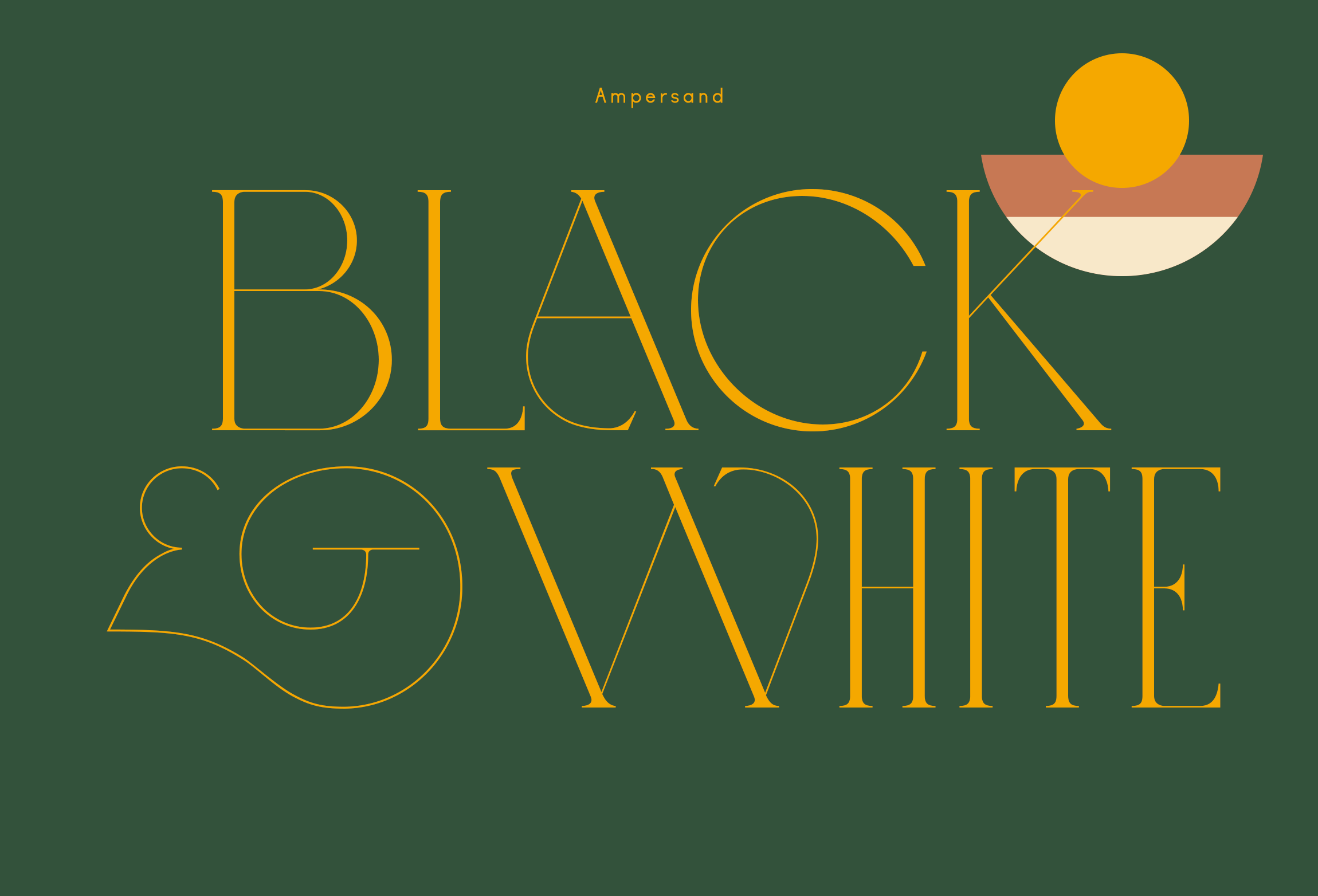
Back Story: This typeface was inspired by the American psychedelic rock band Love, and in particular by their marvelous 1967 album Forever Changes, according to Violaine Orsoni of VJ-Type, the studio she runs with her business (and life) partner Jérémy Schenider. That was the year musicians began moving away from releasing single tunes on 45-RPM discs and started producing ambitious, full-bodied albums. In this vein, Forever Changes blended diverse styles including rock, jazz, folk, and symphonic pop into a fluid, irresistible groove. Despite being a commercial flop at the time of its release, its now widely considered one of the great unsung albums in rock history.
Why’s it called Love? Besides being named for the band, other reasons include: because the letterforms embrace each other in the many ligatures, forming singular couples; because the meeting between sharp and round shapes embodies the “opposites attract” theory of relationships; and because Violaine and Jérémy love to design typefaces. And also, because they love each other. Aw.
What are its distinguishing characteristics? Love is an all-caps display font with each letter available in at least two styles (although Schneider, in typically playful fashion, created two character sets named Uppercase and Lowercase, distinguished mostly by variances in letter width, plus a few other quirks here and there). Many have an even more generous selection of alternates: the “M” has four options, for example, and the “R” has five.
“We worked to give Love 17 stylish ligatures,” says Orsoni. The characters have beautiful contrast thanks to exaggerated counter-forms paired with thin stems, creating a variety of rhythms that somehow preserve balance among typeset words. The typeface emits an essential French-ness despite its American ’60s inspiration, channeling the ghost of 20th-century design legend A.M. Cassandre and echoing the sensually intertwined letters of one of his final projects, the 1963 Yves St. Laurent YSL logo. However, Love’s inventive ligatures coupled with extreme contrasts in letterform width and stroke give it its own distinctly modern voice.
What should I use it for? “Mostly for titles,” Orsoni says. “But the range of glyphs can bring the font into a kind of logotype universe, too.”
What other typefaces do you like to pair it with? For a partner with equal typographic distinction and flair, try pairing Love with Kobe or Fugue. Some happy couples work because one is content to let the other hog the spotlight; for this effect, try the more modest GT Pressura.